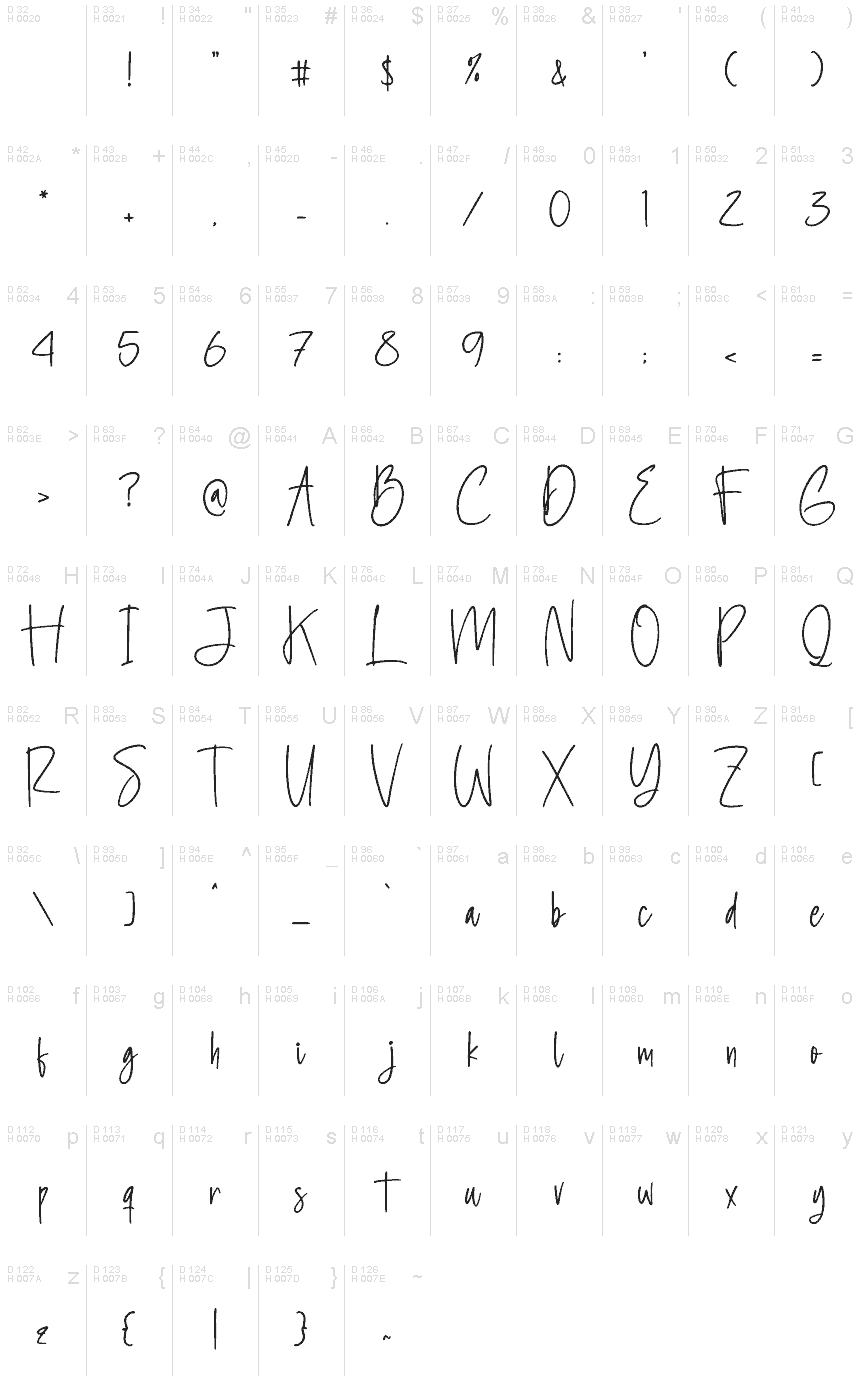
Heathilery
Heathilery Font is a light handwritten font designed by Letterena Studios with characteristics including casual elegance, and a modern touch. Its expressive style evokes authenticity along with its familiar personal feel in communication with an audience.
Apply it to body text and headlines for product packaging, typographic posters, invitation cards, website texts, business cards, etc. Worn on its own or combined with other styles of your design choice, this free handwritten font meets all expectations and over.